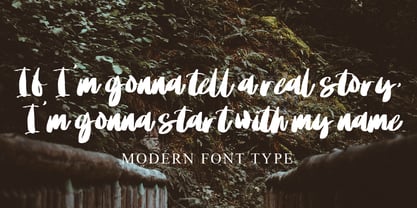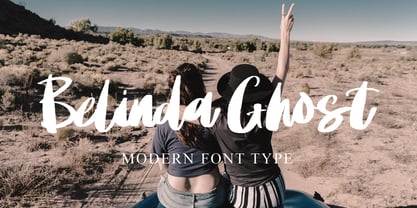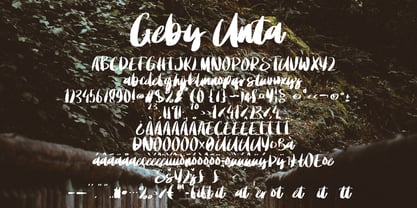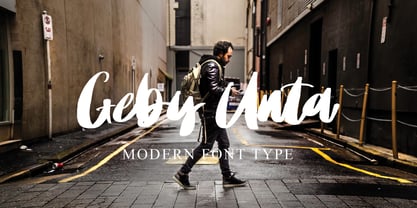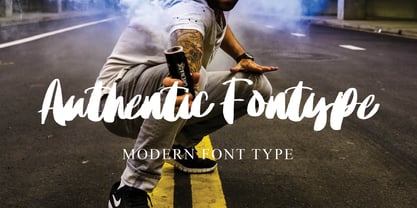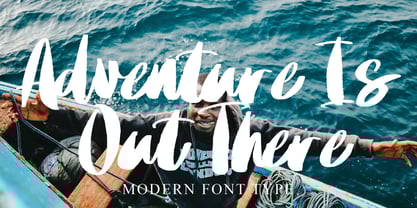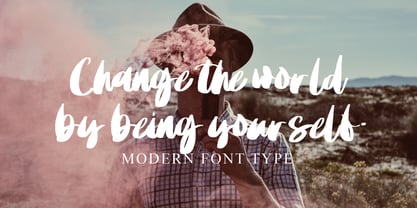
Geby Unta
by Naatypo
The Geby Unta Font Family was designed by Kurnia Elis Setyorini and published by Naatypo. Geby Unta contains 1 styles. More about this family
Experience the evolution in letter design with Geby Unta, my newest hand-painted brush font. Leveraging revolutionary technology, this typeface steps beyond the limitations of traditional vector formats, adding an unprecedented level of detail to each letter. With high-resolution brush stroke images serving as the foundation, Geby Unta effortlessly renders an organic, paintbrush effect. Its transparent texture adds depth and dimension without necessitating additional design work. Revel in the intricate details and extraordinary definition that make Geby Unta the chosen font for those seeking to make a bold, creative statement.
Designers: Kurnia Elis Setyorini
Foundry: Naatypo